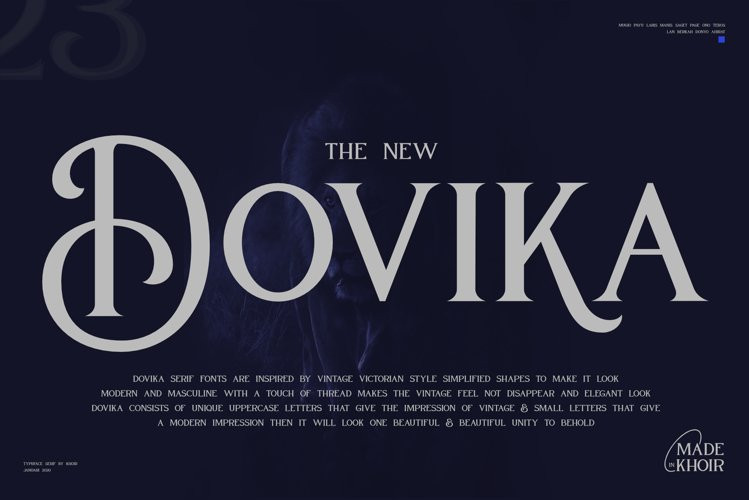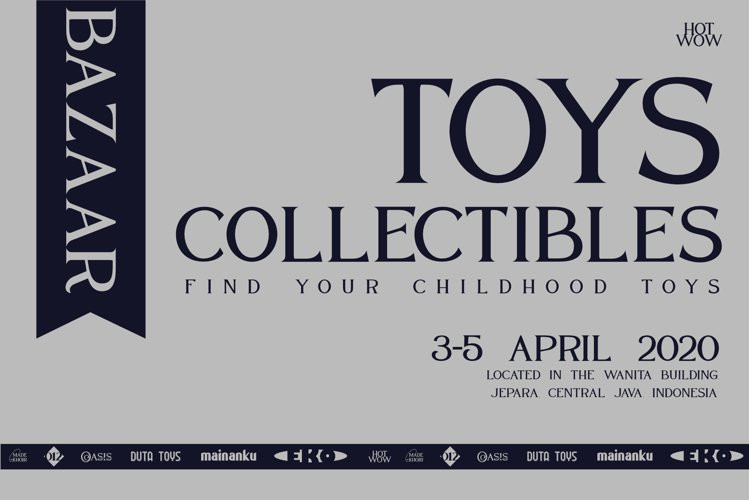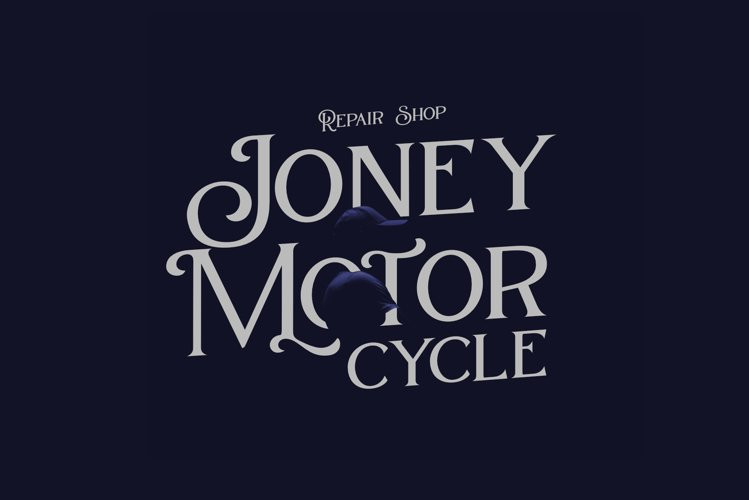
Dovika Font
Dovika FontDovika serif fonts are inspired by vintage victorian style which is simplified to make it look modern and masculine, with a touch of thread makes the vintage feel not lost and looks elegant dovika consists of unique uppercase letters that give the impression of vintage & small letters that give a modern impression then it will look a single unitWhat’s included?